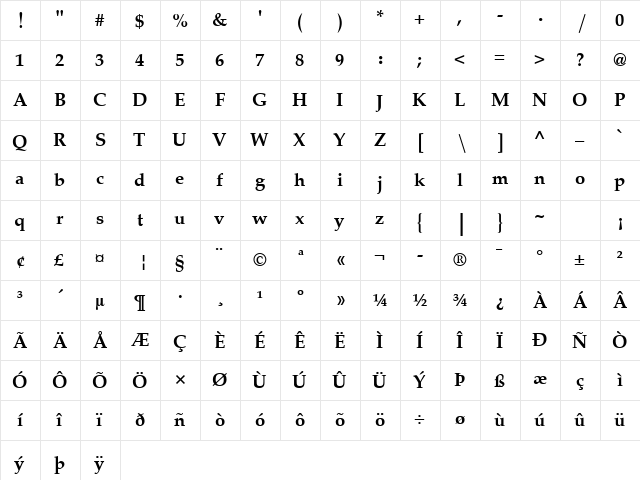
ASVCodar LT Bold
| Designer | Ahmed Lakhdar-Ghazal |
Design Context for ASVCodar LT Typeface
ASVCodar LT is a composed and adaptable typeface that performs quietly and consistently across a wide range of design contexts. Its bold stroke weight gives it real presence on the page.